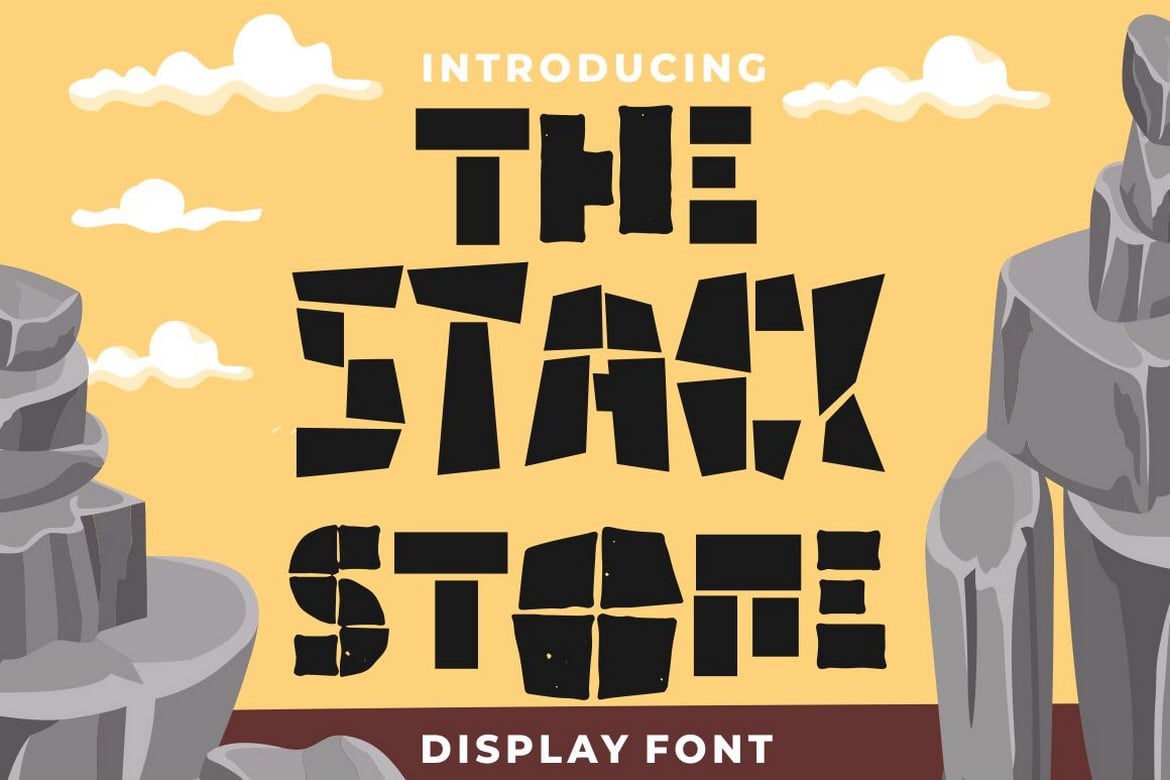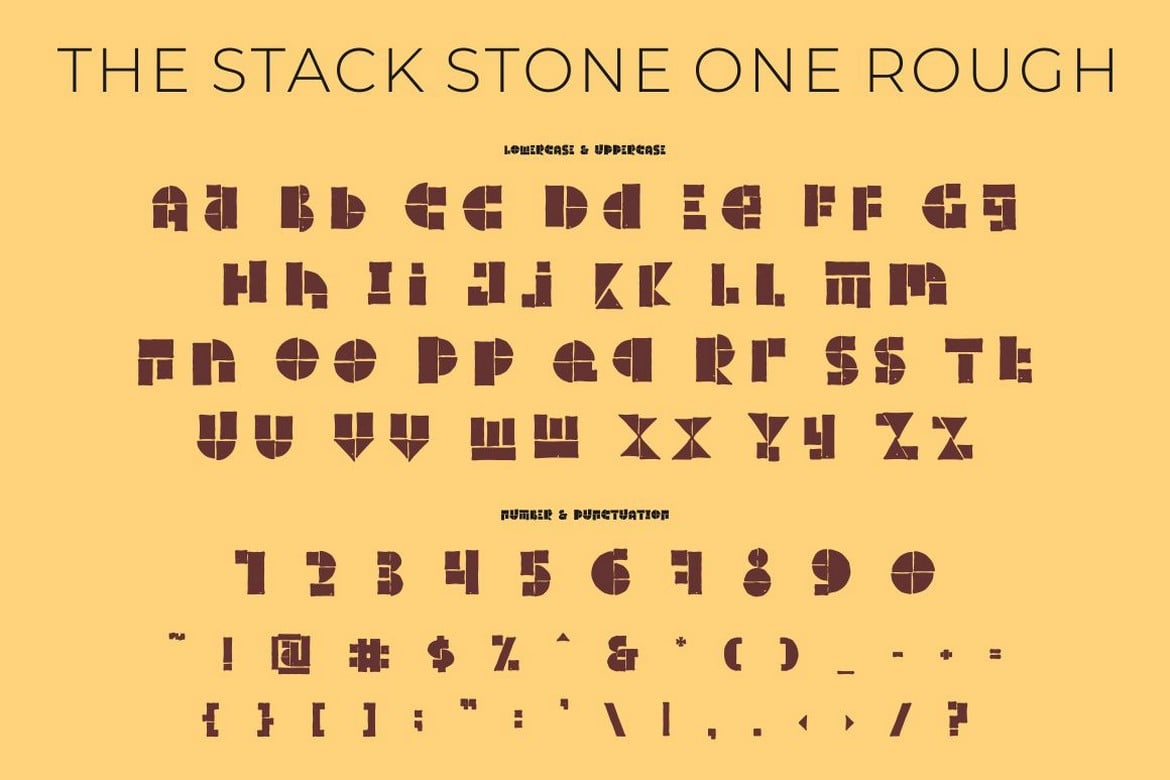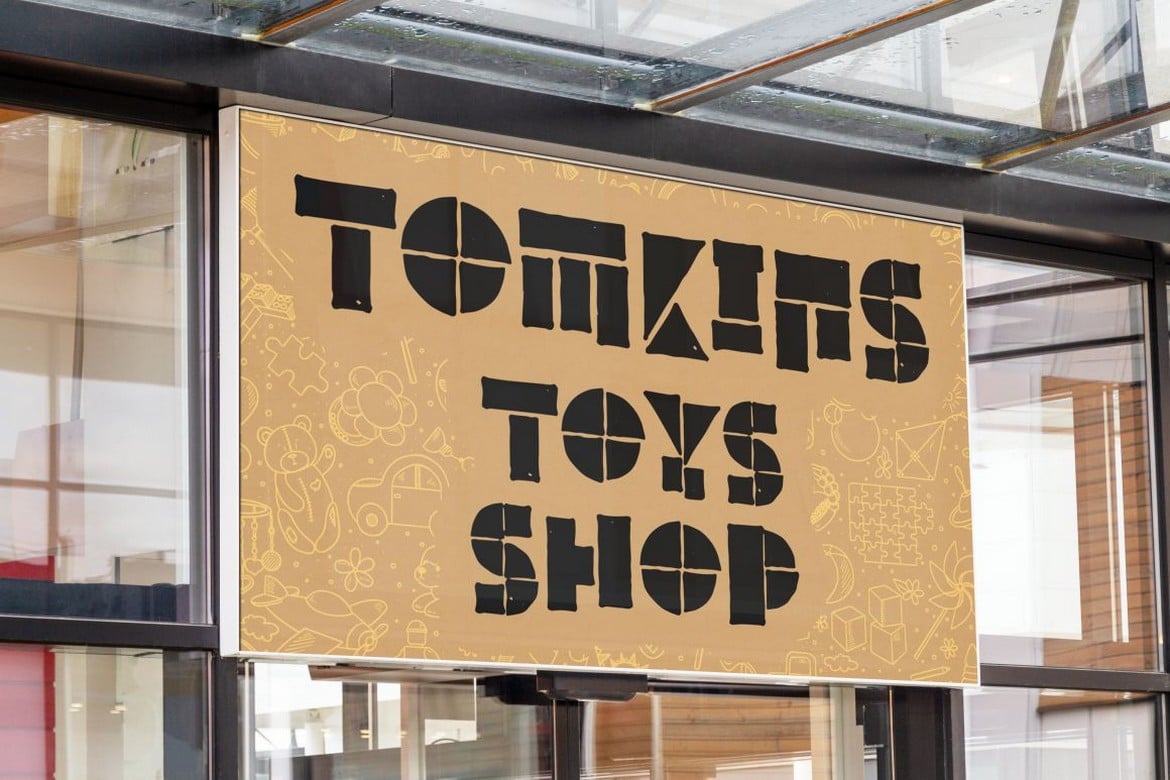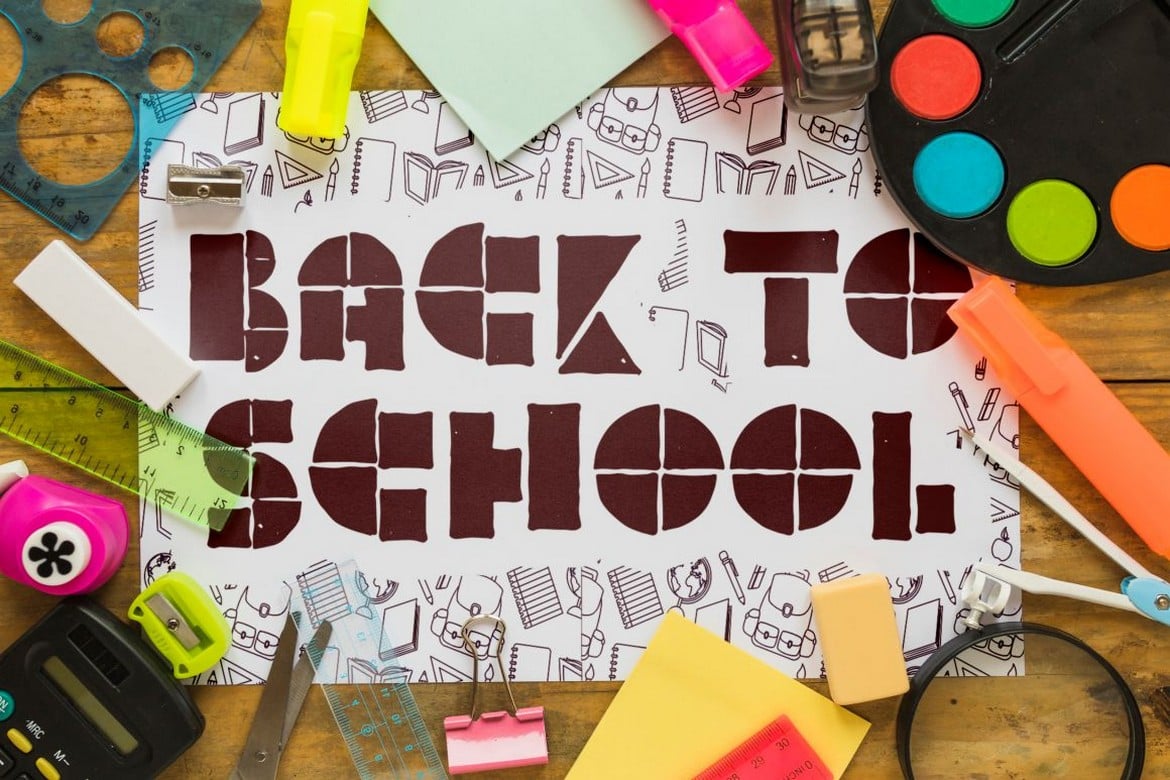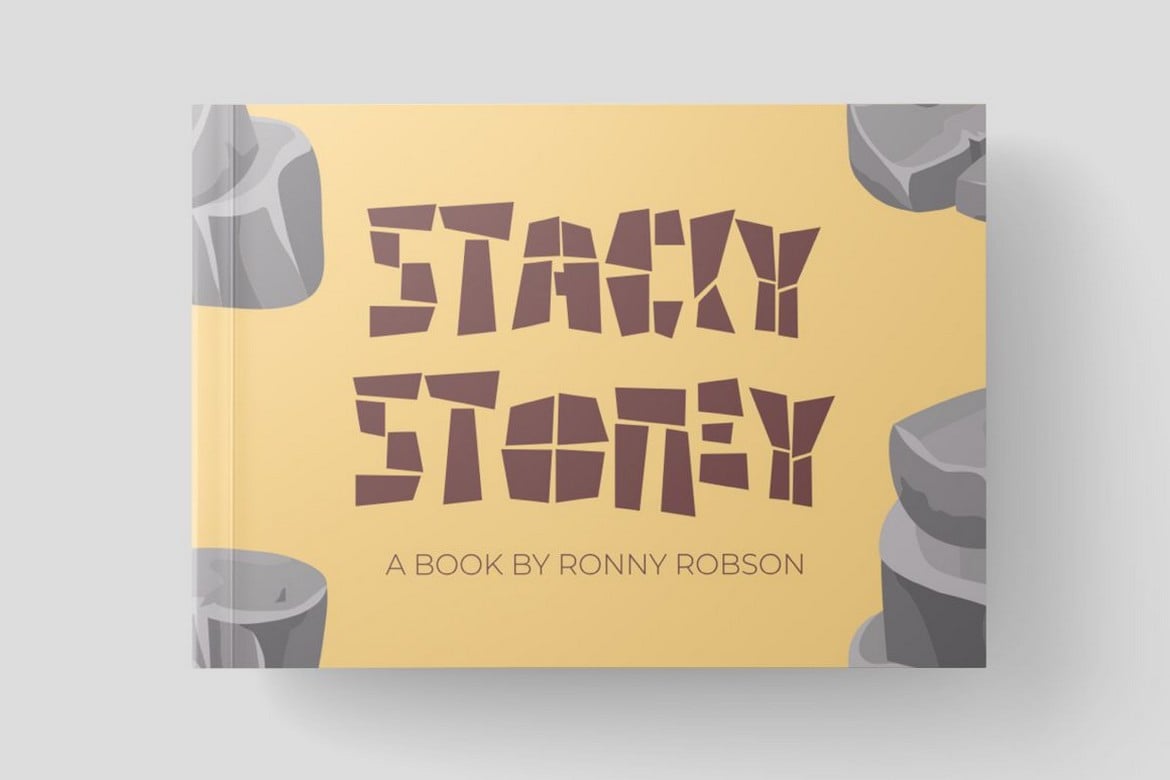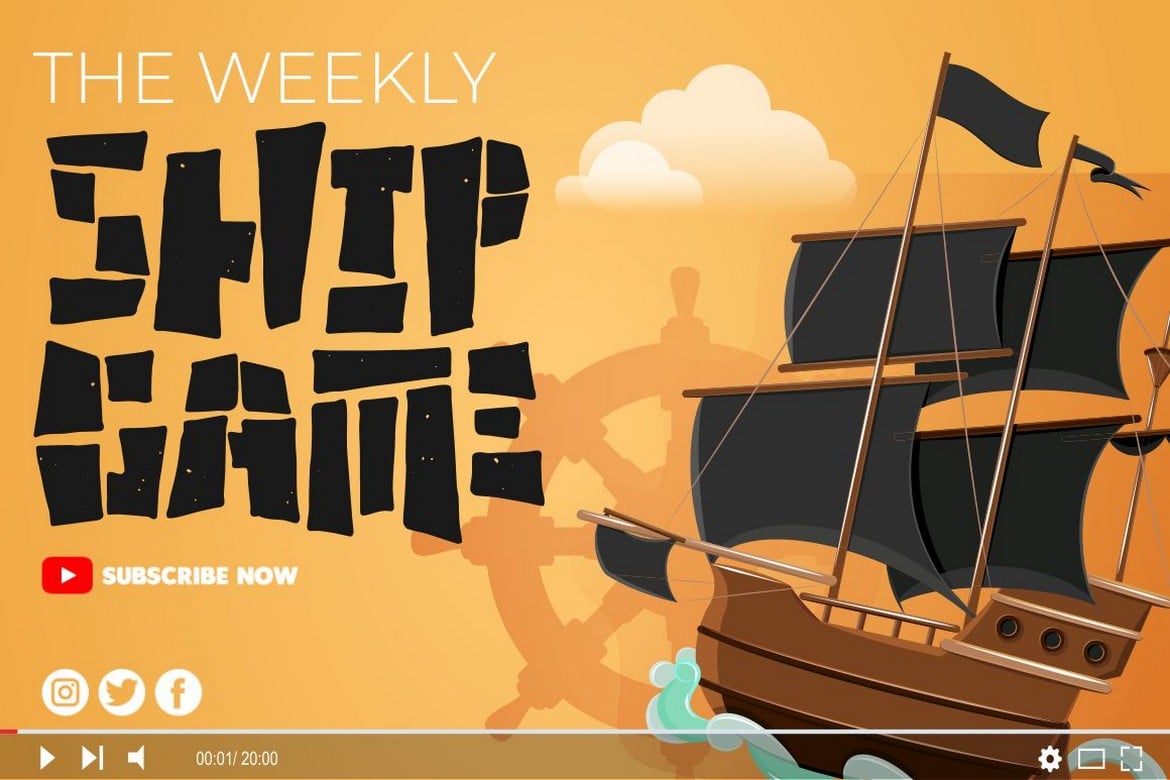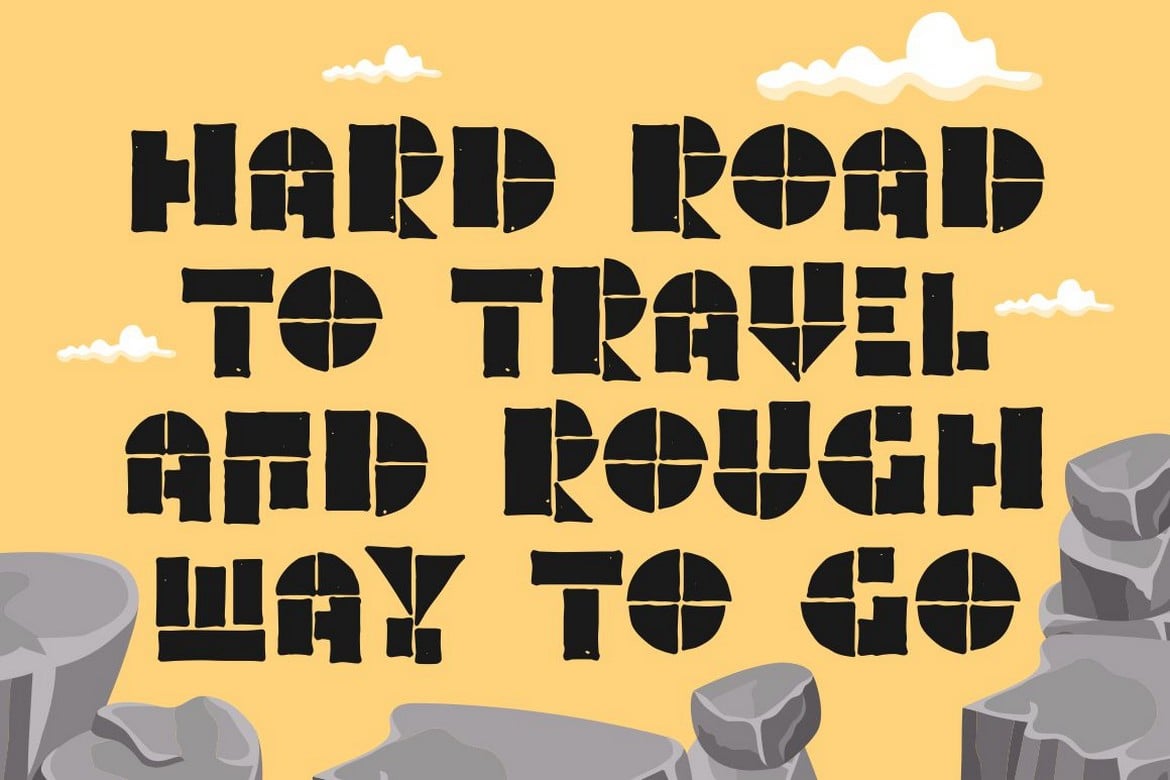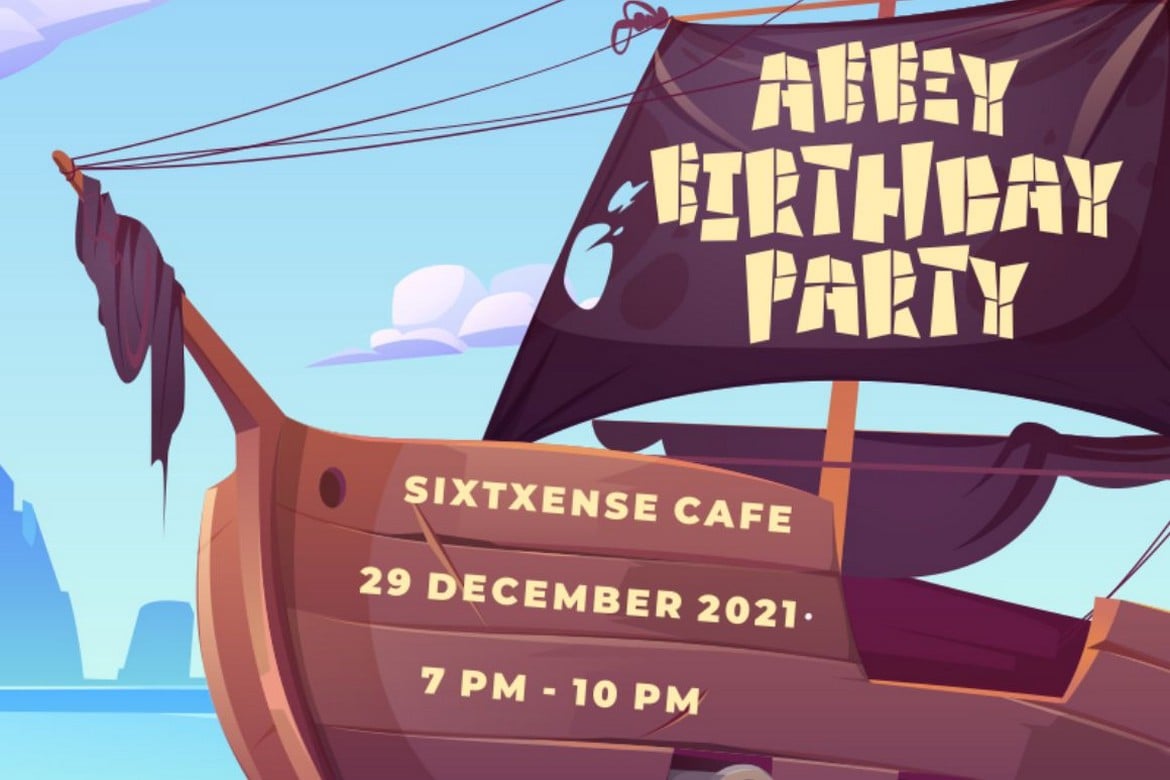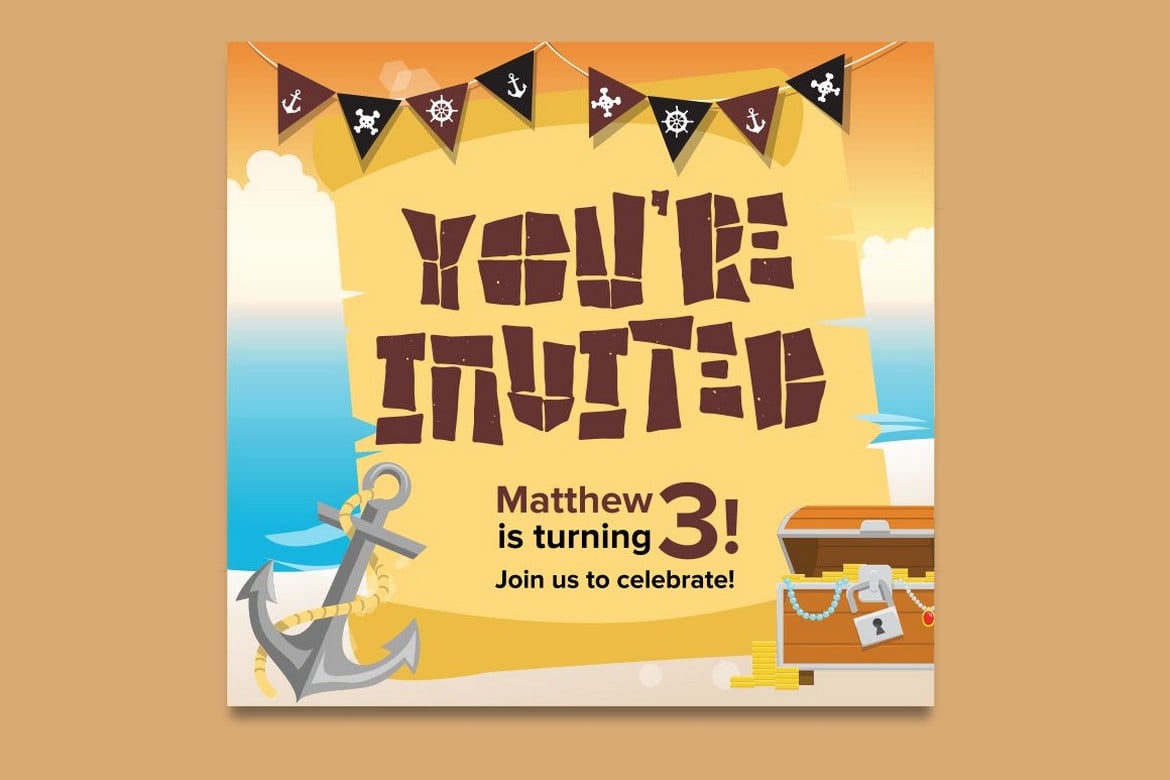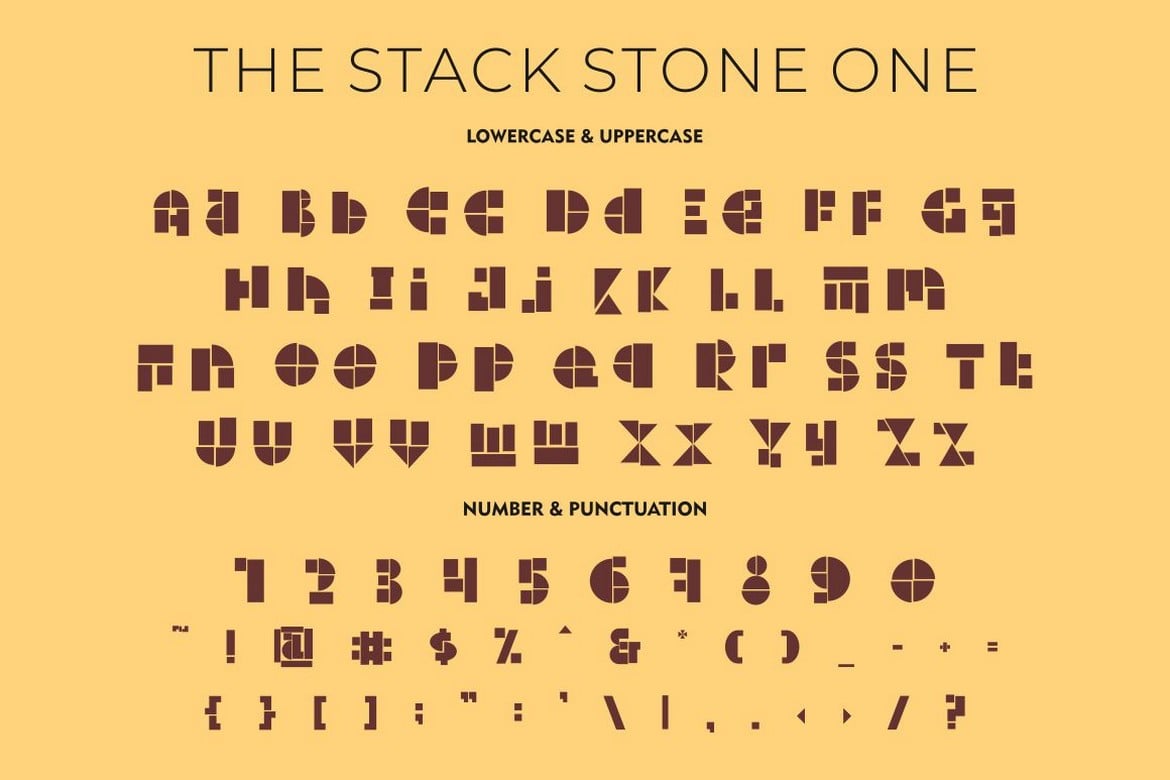
The Stack Stone – Display Font
The Stack Stone – Display Font a bold, quirky display font with a fun, trendy street style vibe. The Stack Stone is a versatile, stacking typeface perfect for retro or modern design aesthetic. The Stack Stone was hand-drawn, making its outlines somewhat irregular and quirky. It has an almost hand-lettered look; the characters jump around the baseline giving it a charming but urban look and feel. The Stack Stone suitables from posters designs to packaging, Stacked Letter will give your designs that alternative look and make your creative work look amazing.
With a The Stack Stone , it will be very suitable for your project, which is related to fun, trendy street style vibe. Such as story books, illustrations, comic books, posters, greeting cards, logos, branding, stickers, svg, crafting.